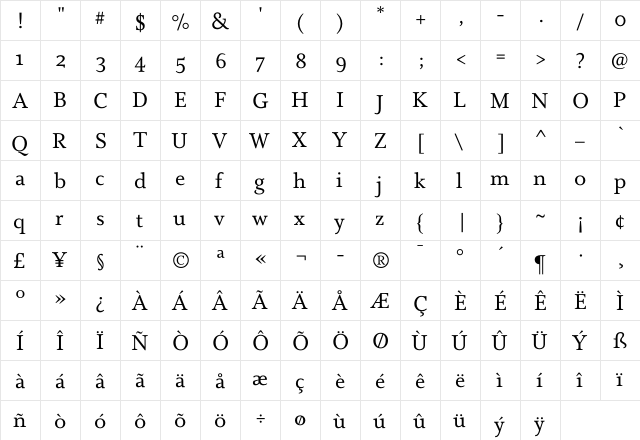
Cultura Regular
Design Context for Cultura Typeface
Cultura takes a measured approach to typography — its balanced proportions and neutral character make it a reliable workhorse for both digital and print work.